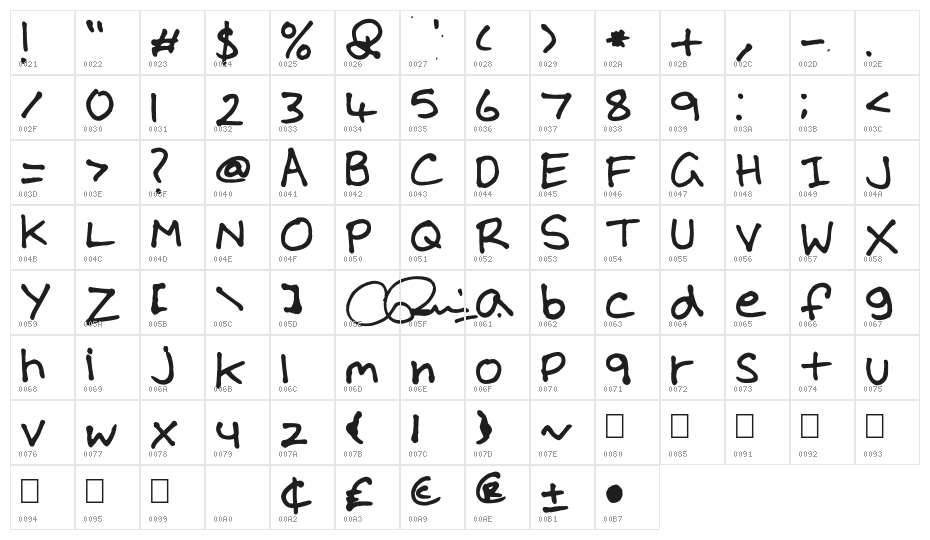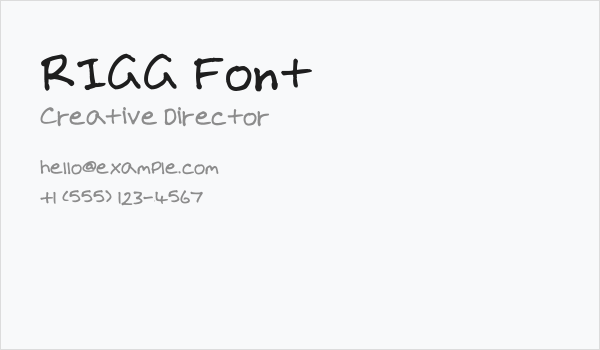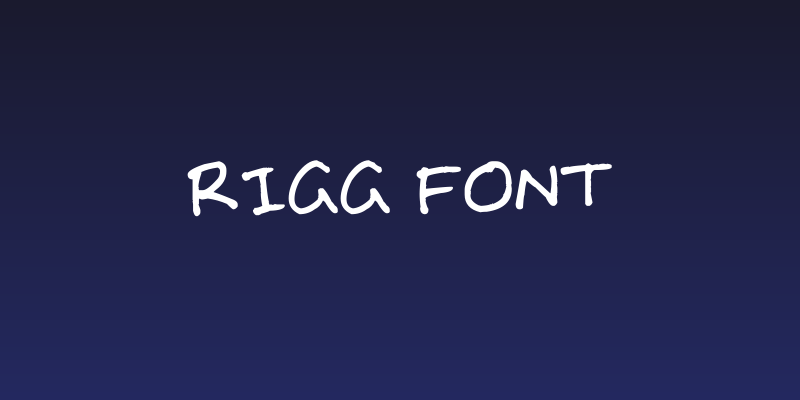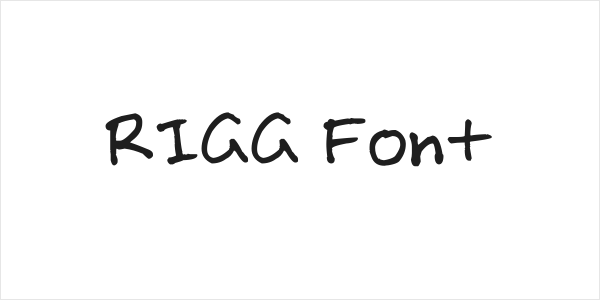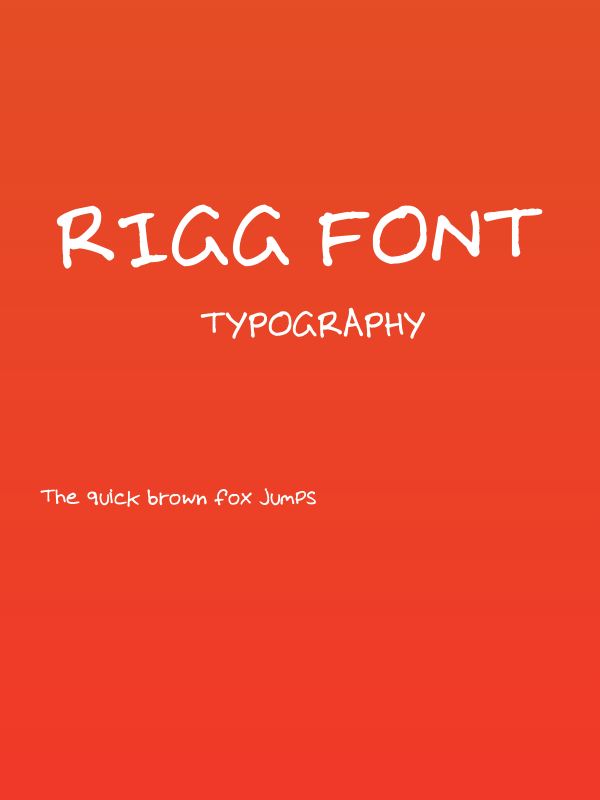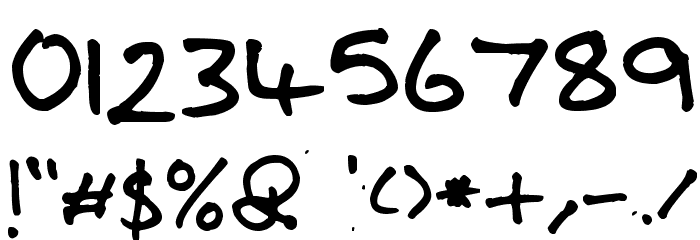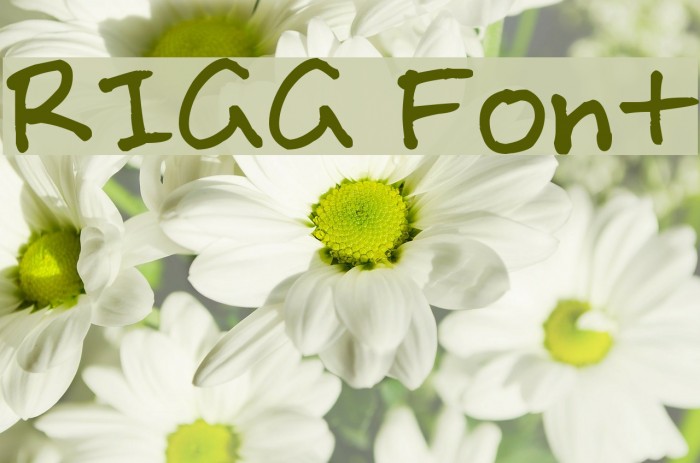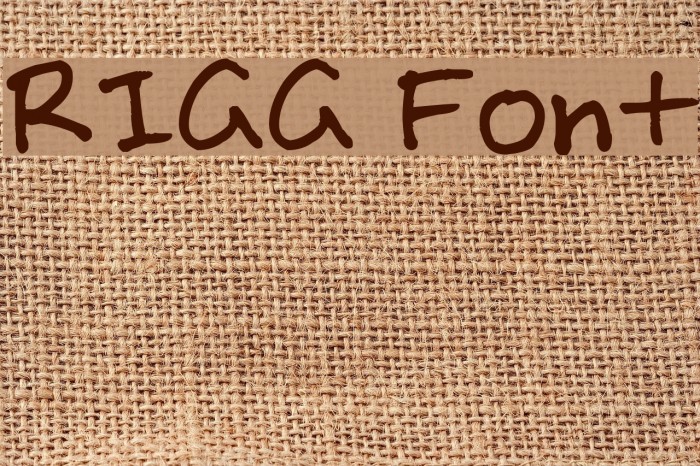
RIGG Font Font
RIGG Font Description
This font features a playful and casual handwritten style, characterized by its irregular strokes and informal appearance. The letters are slightly uneven, giving it a natural and organic feel, reminiscent of a marker or brush pen. The uppercase and lowercase letters maintain a consistent style, with rounded edges and a friendly demeanor. The numbers and special characters follow the same informal aesthetic, making it suitable for projects that require a personal touch. The font's overall appearance is approachable and versatile, making it ideal for creative and informal applications.
| Proposed Projects | Ideal for greeting cards, children's books, personal blogs, and creative branding. |